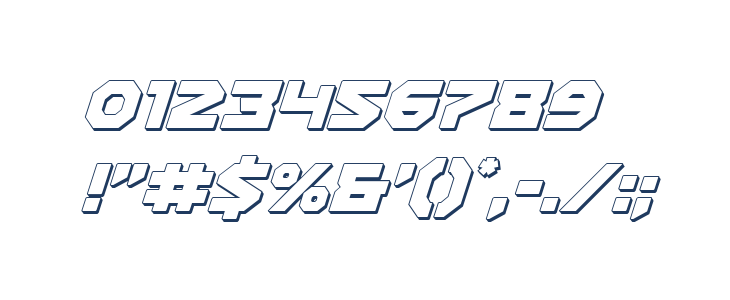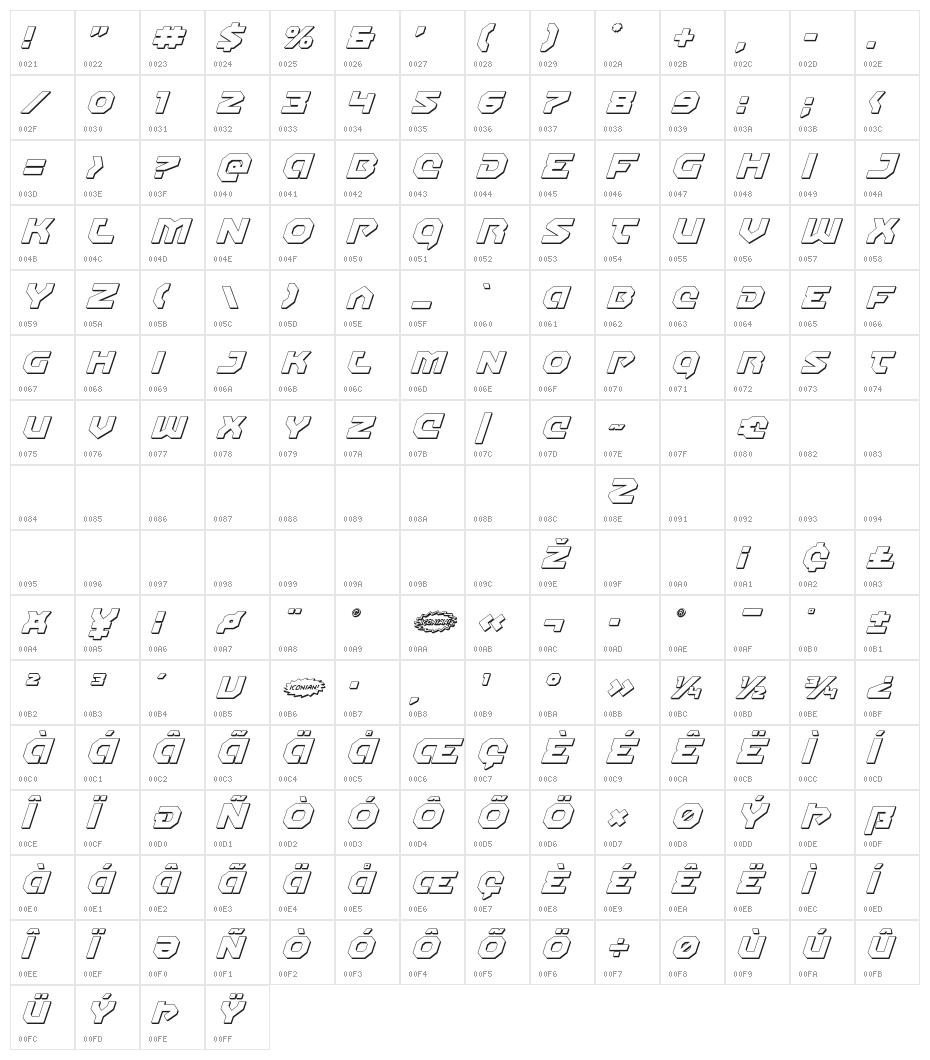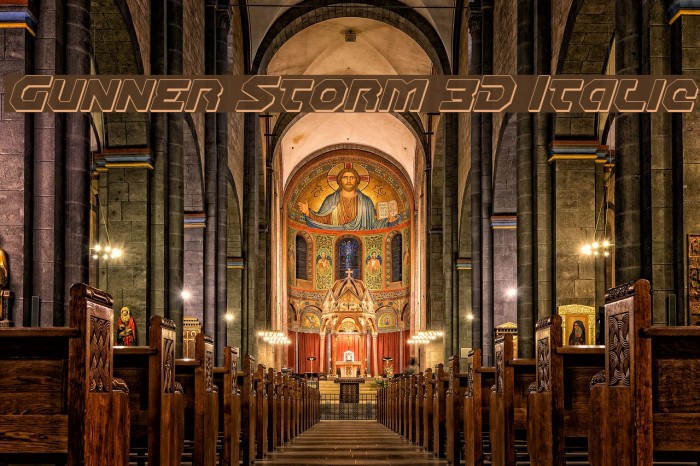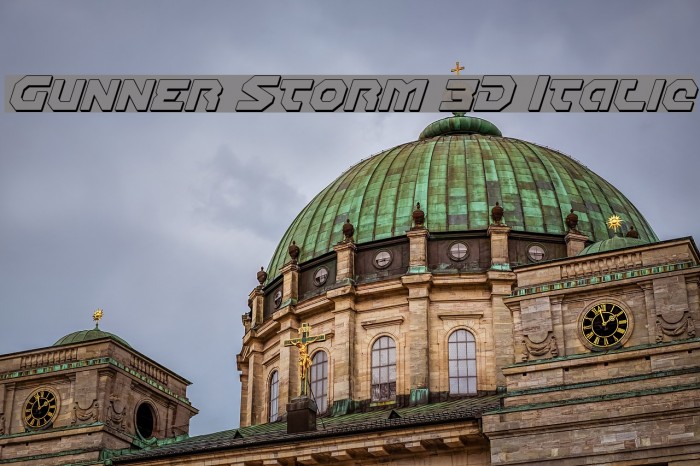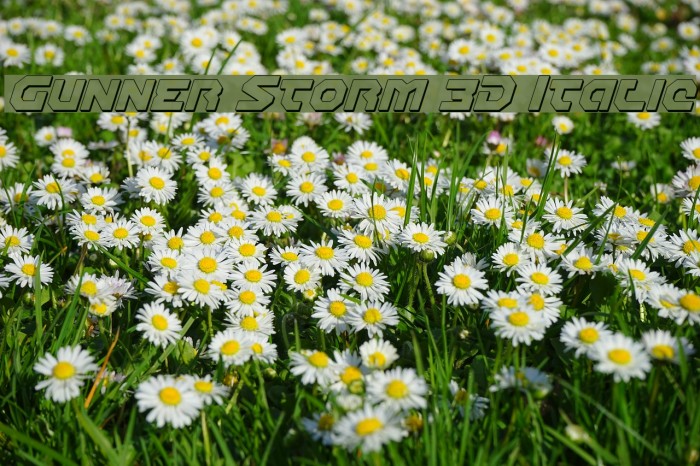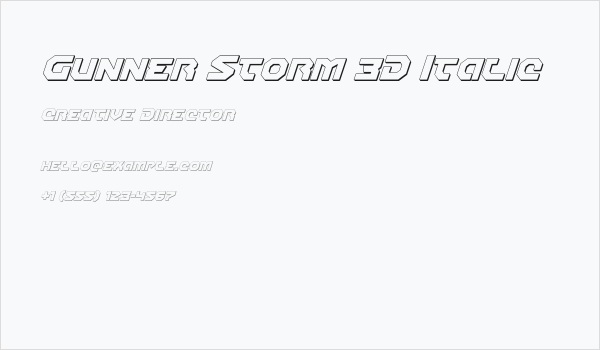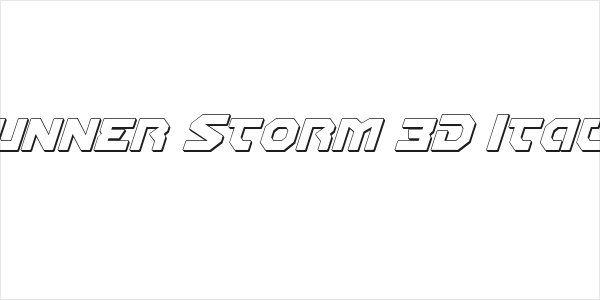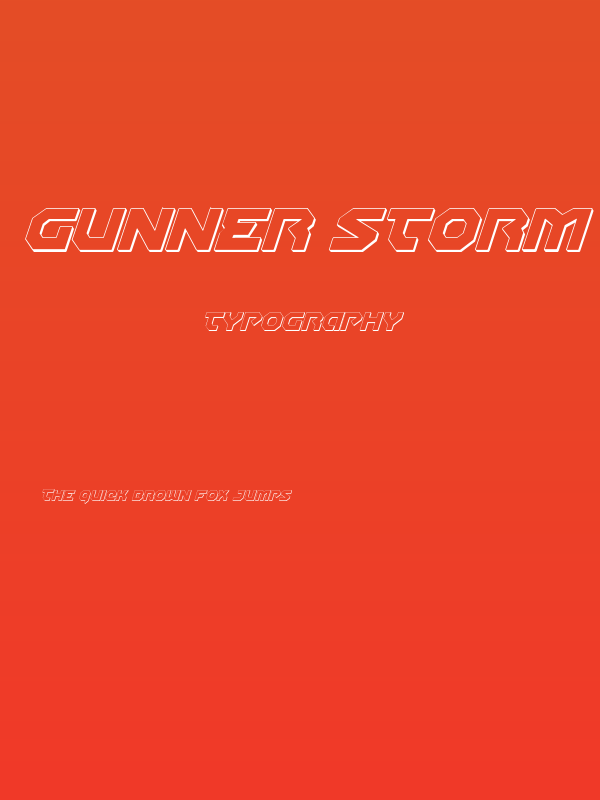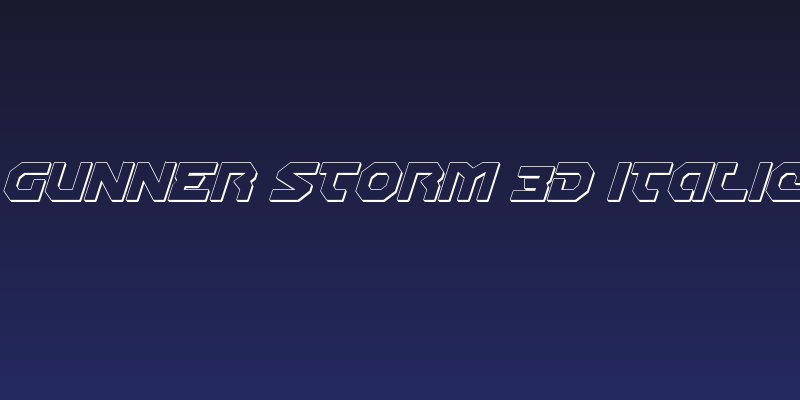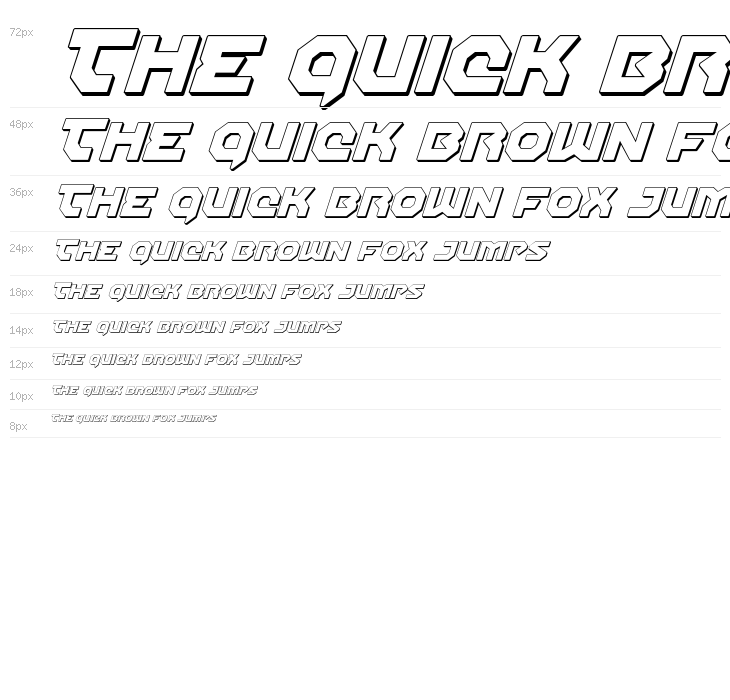
Gunner Storm 3D Italic Font
Gunner Storm 3D Italic Description
This font features a bold, three-dimensional style with an italic slant, creating a dynamic and futuristic appearance. The characters are outlined, giving them a distinct, sharp edge that enhances their 3D effect. The uppercase and lowercase letters maintain a consistent geometric structure, with angular cuts and a sense of movement. The numerals and special characters follow the same design principles, ensuring uniformity across the typeface. This font's unique style makes it stand out, ideal for projects that require a modern and impactful look.
| Proposed Projects | Ideal for video game titles, sci-fi movie posters, technology branding, and any project needing a modern, impactful typeface. |